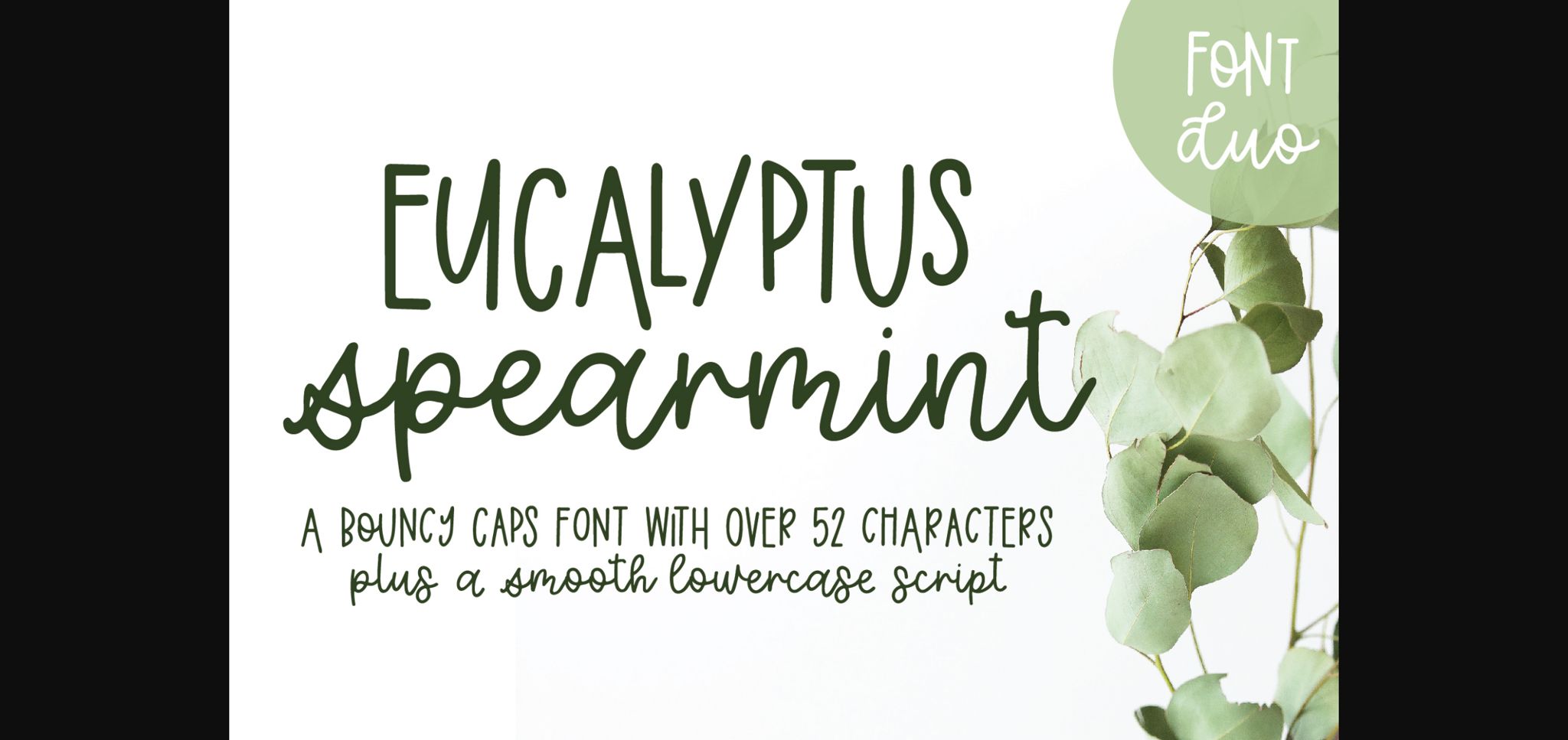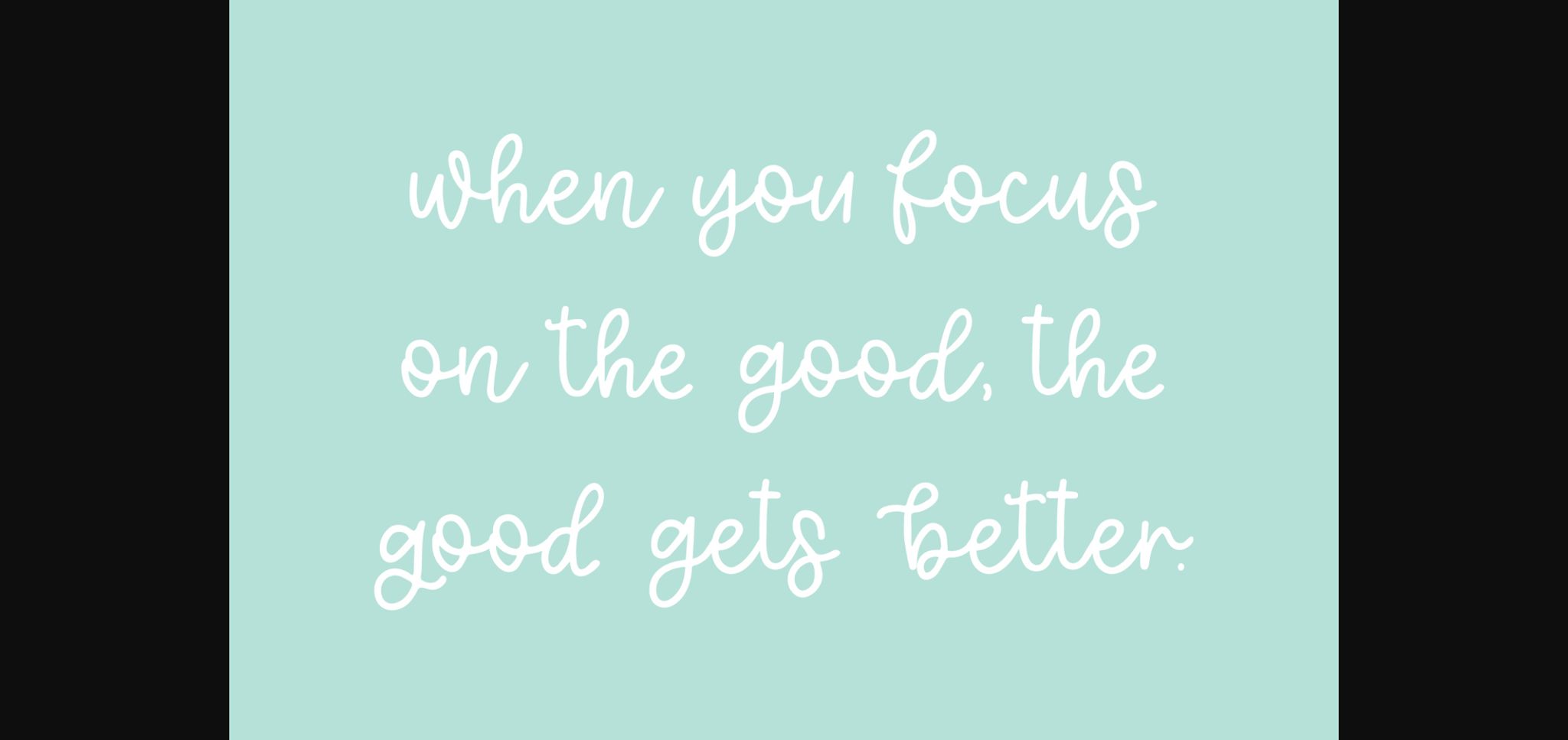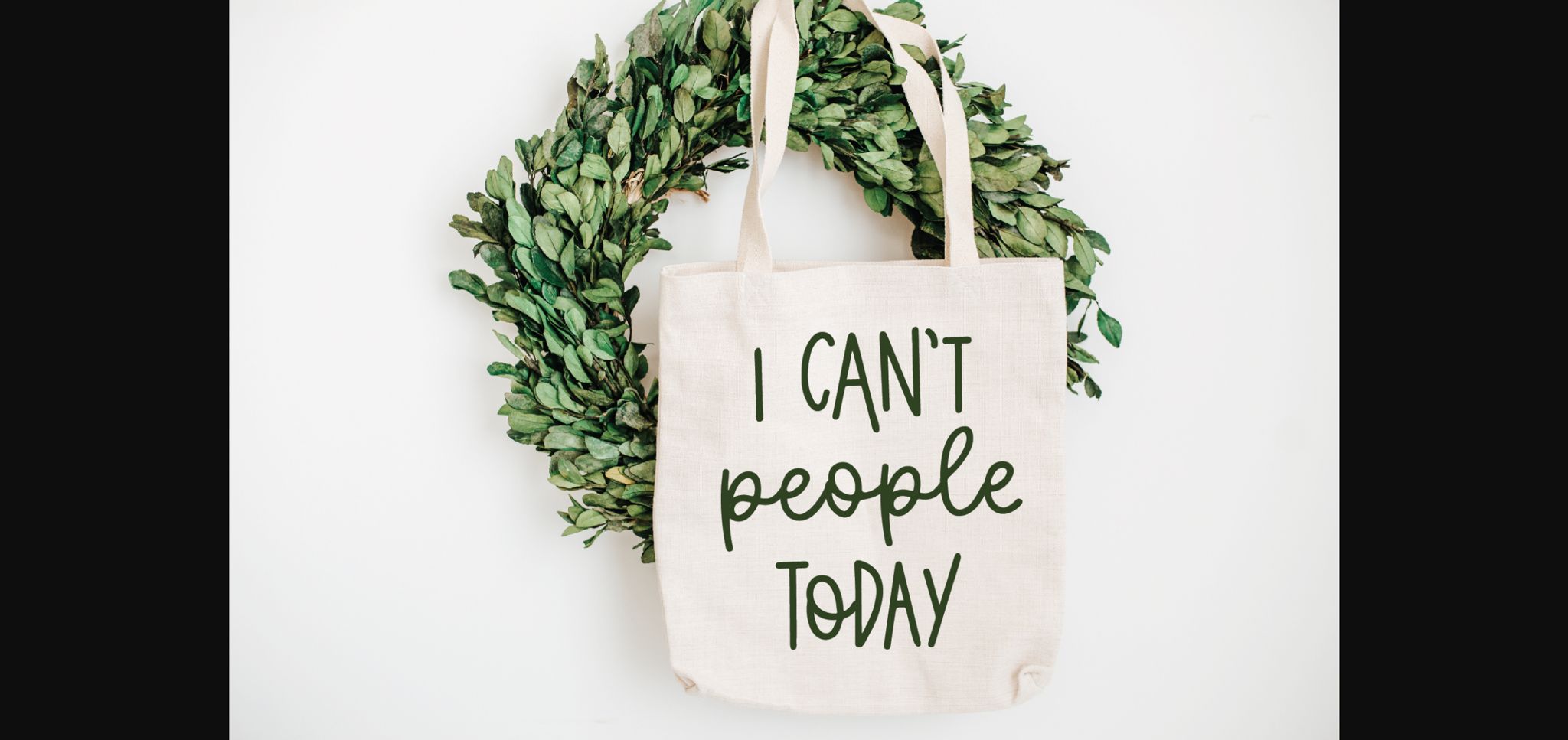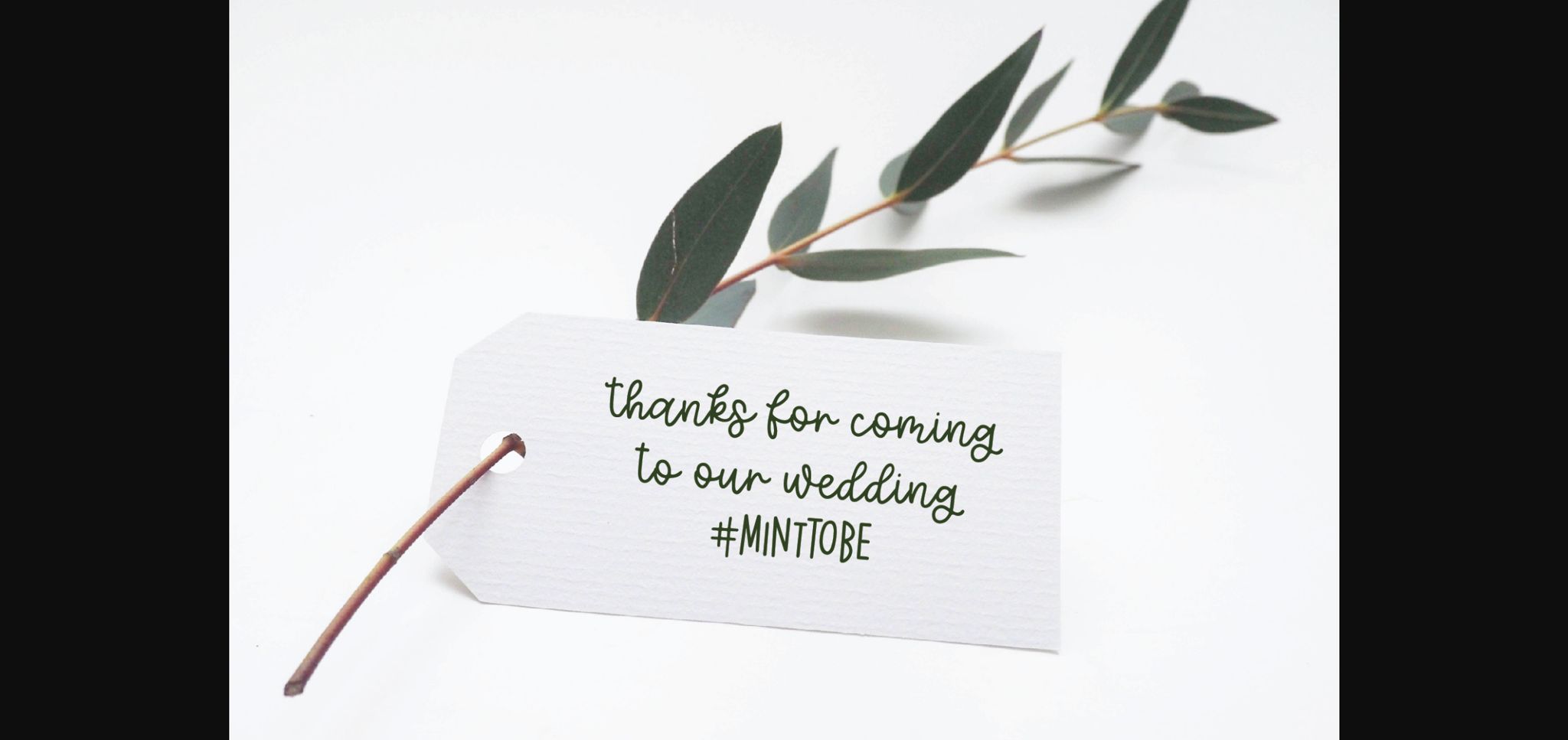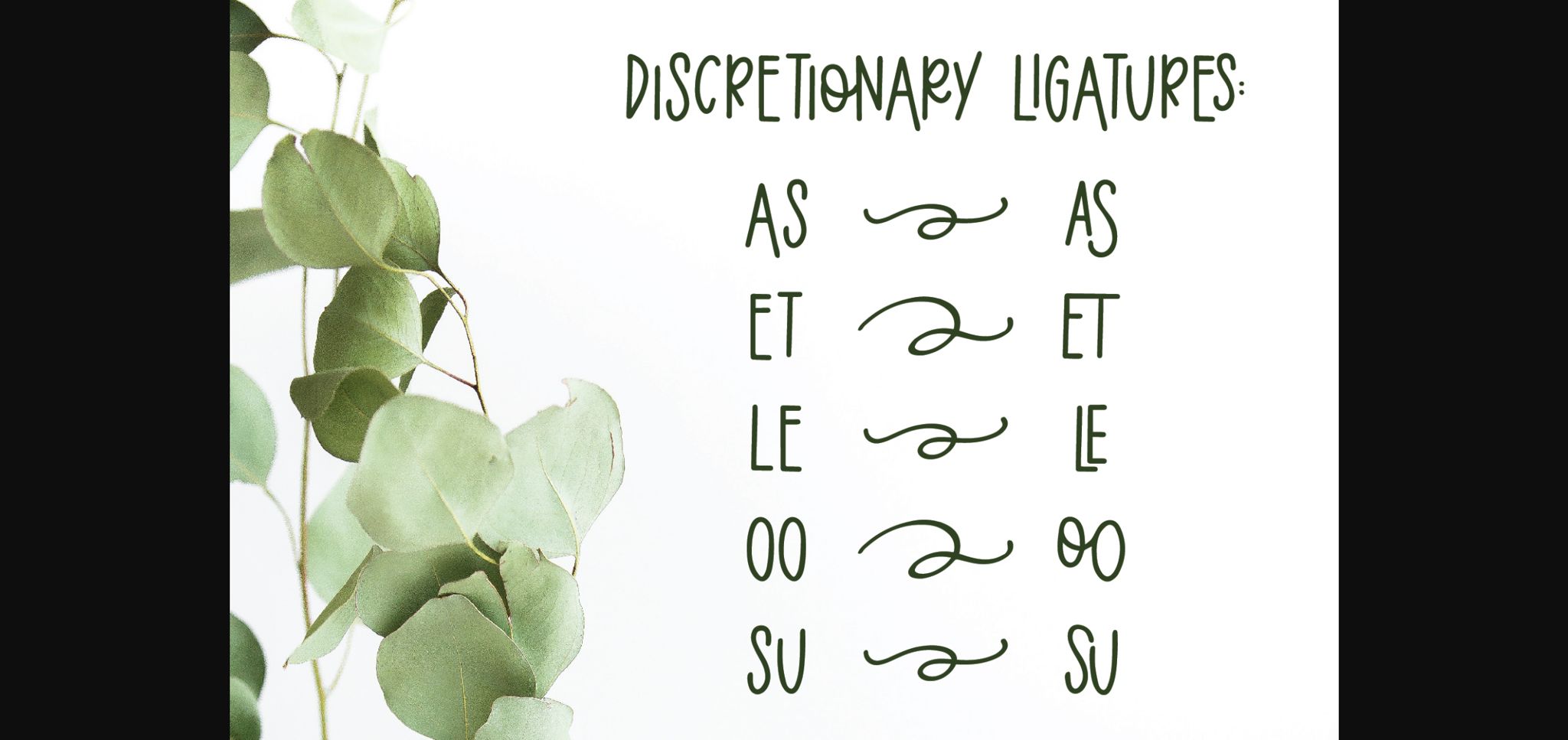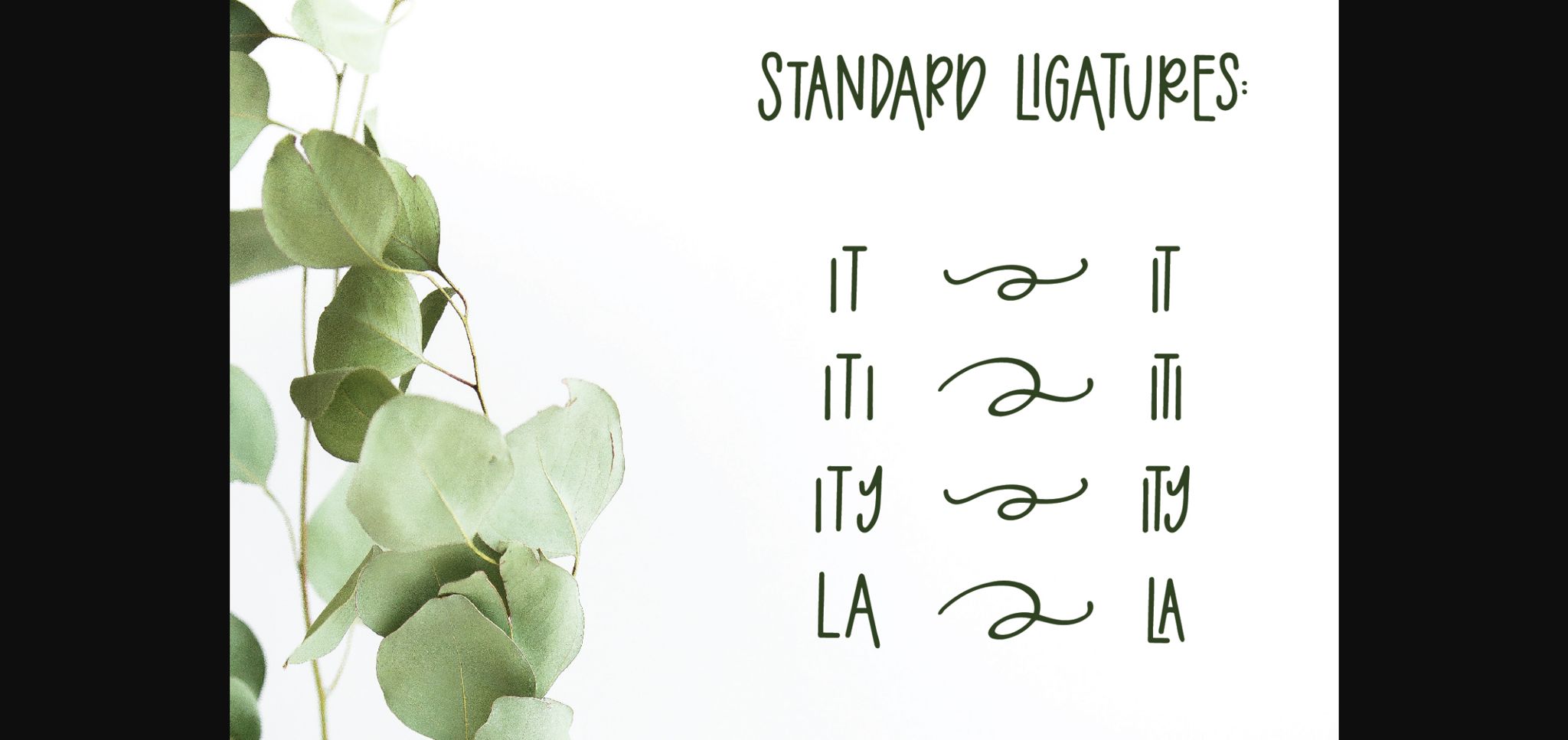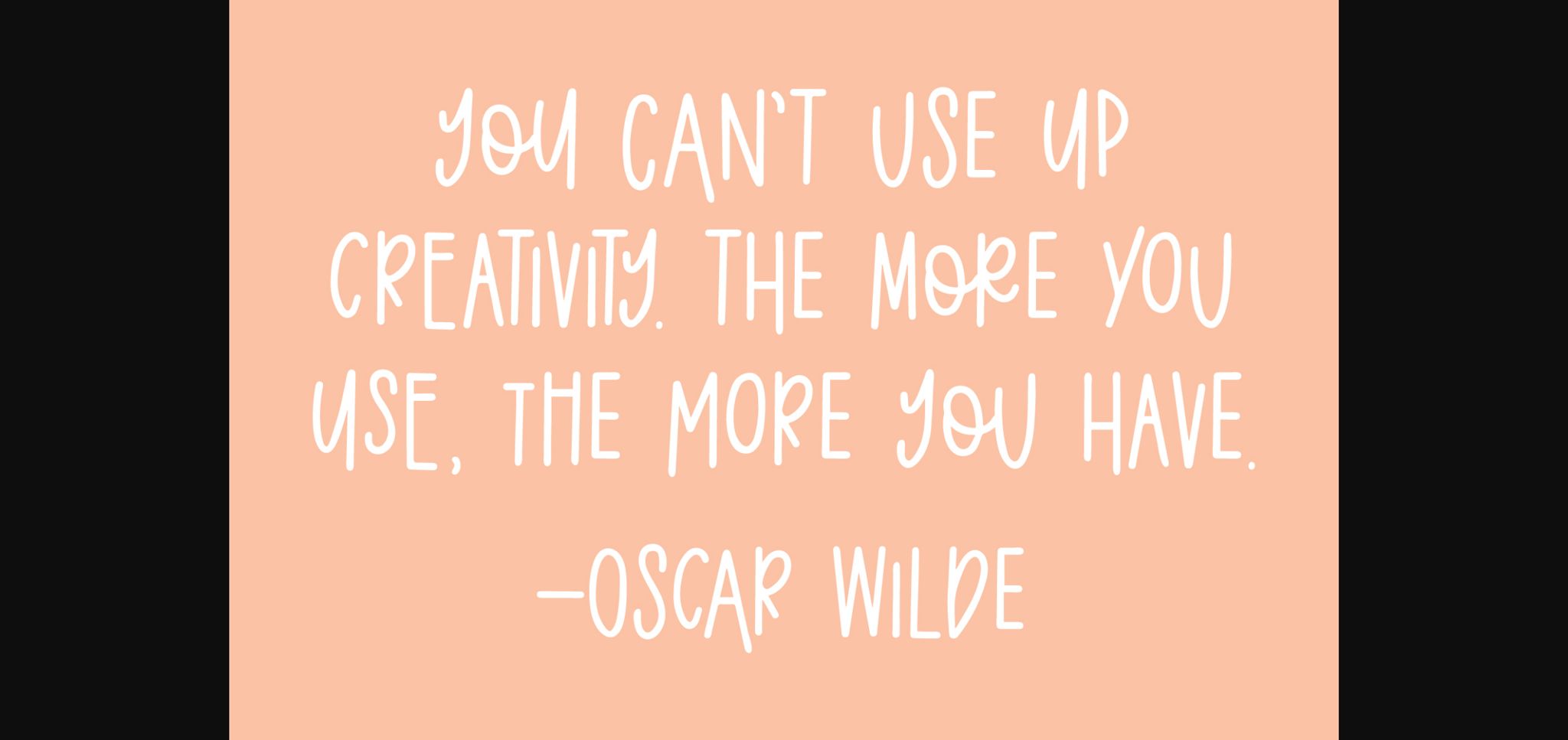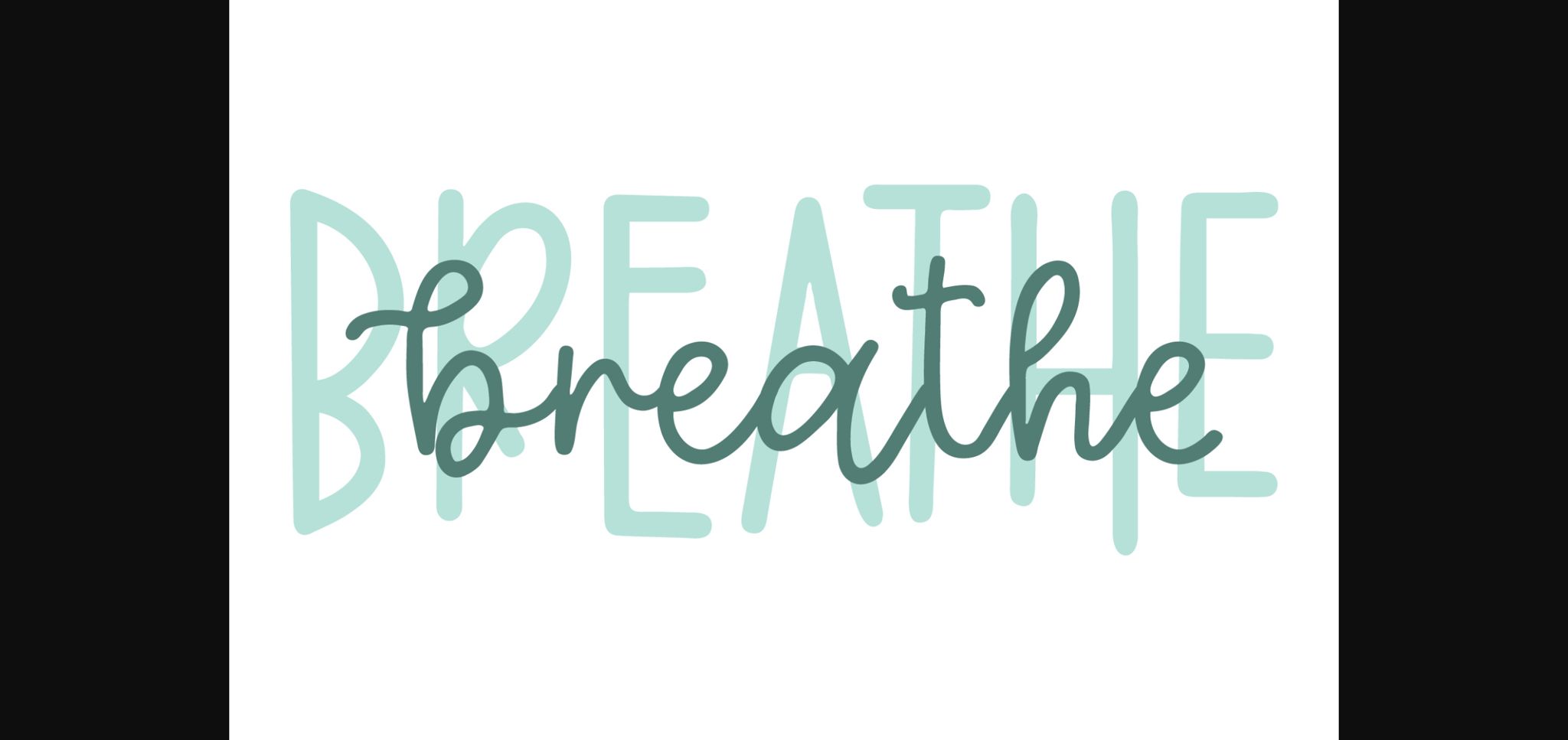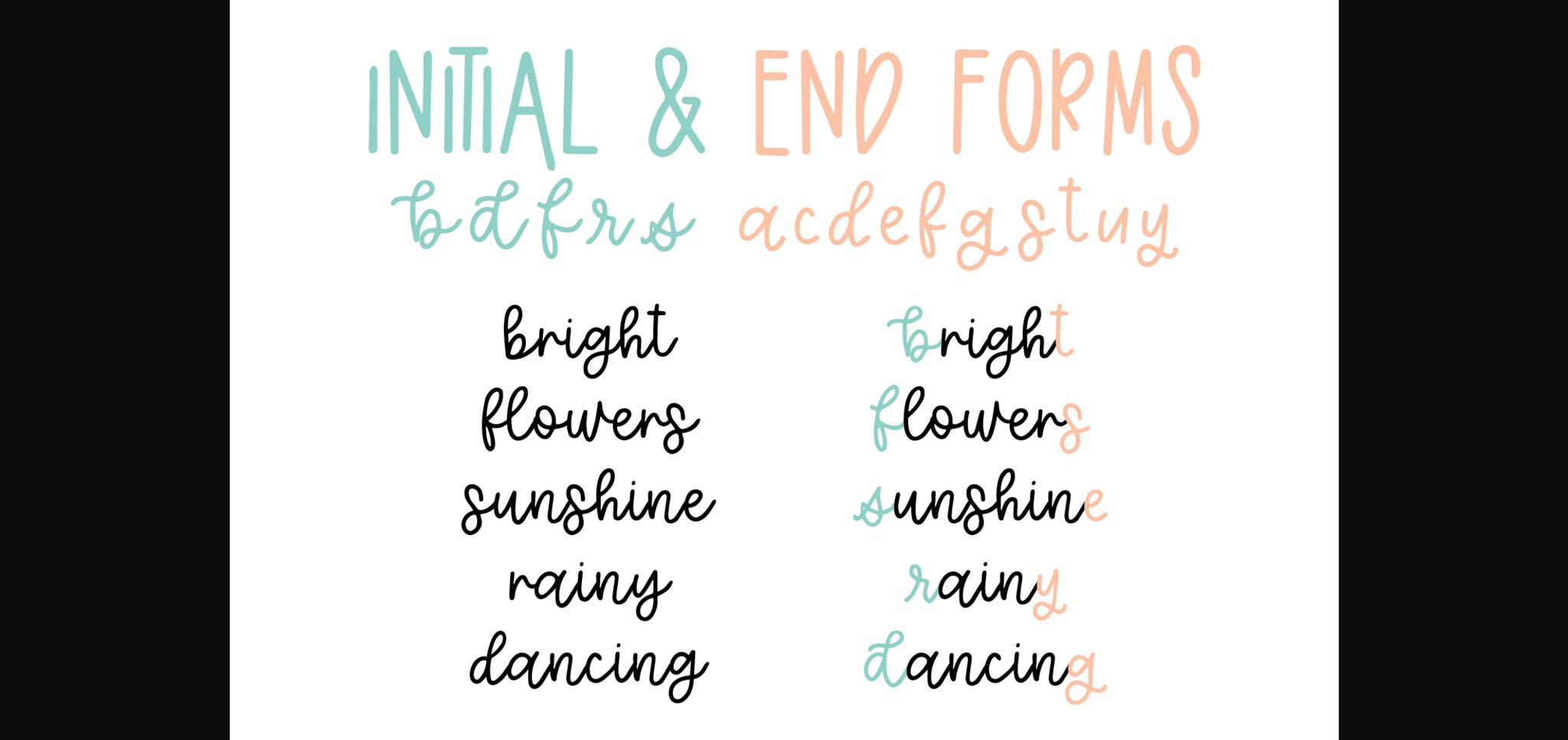
Eucalyptus Spearmint Font
About Eucalyptus Spearmint Font
Eucalyptus Spearmint is romantic and sweet, but also casual. This beautiful sans serif font has a wide range of applications ranging from hobby crafting to professional projects, and is guaranteed to add a playful touch to your next design.
This font is PUA encoded which means you can access all of the pretty glyphs and swashes with ease! It also features a wealth of special features including gorgeous alternate glyphs and ligatures.